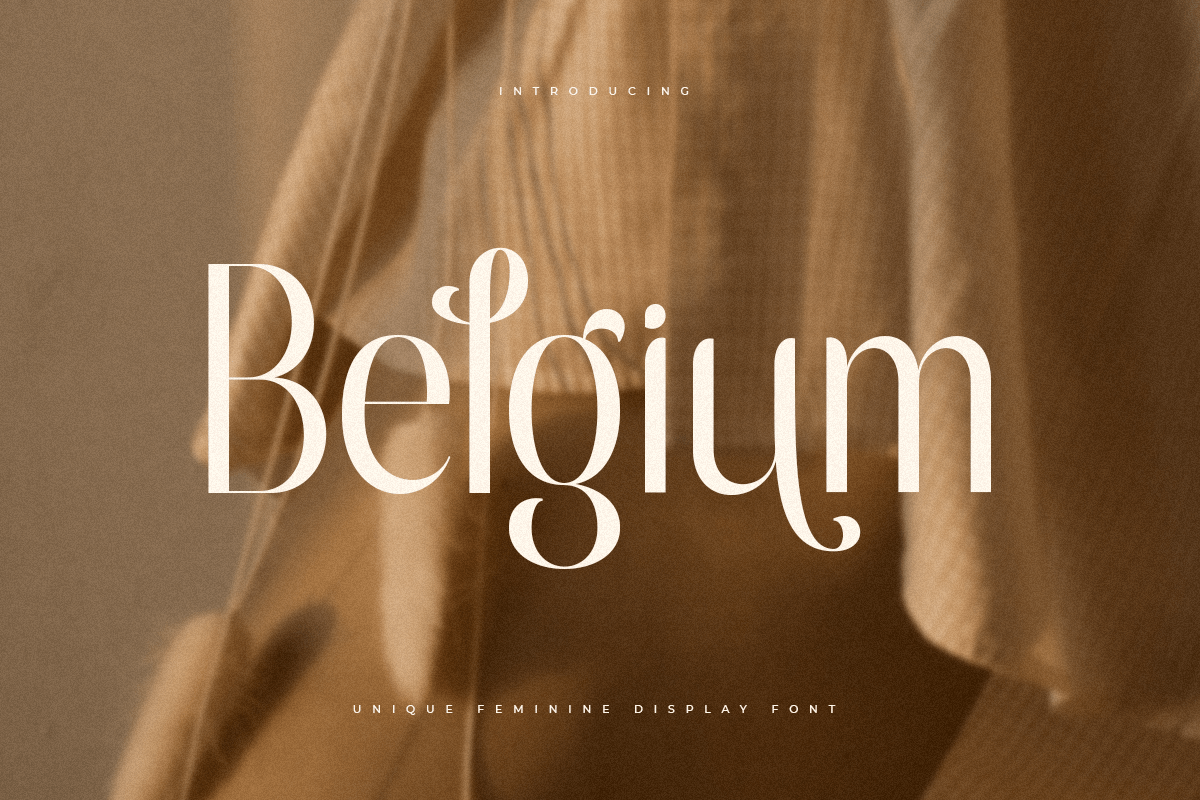
Belgium
-Unique Feminine Display FontType Tester
An Unique Feminine Display Serif font that we created special for elegant branding needs, with unique shape will be ready to add value of your brand. It so nice to leverage designer or product owner that need solutions to make their design look more stylish and modern. And specially for Belgium font, We prepared any characters to help you create unlimited variations for your creative needs.